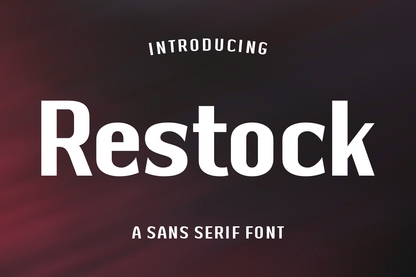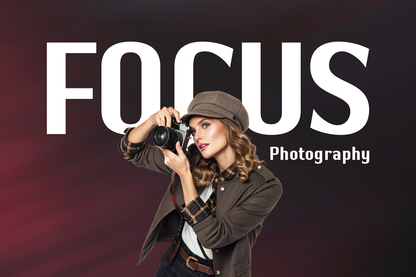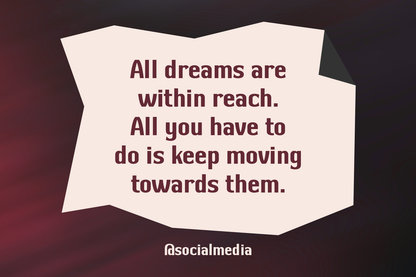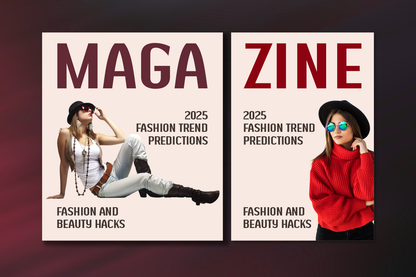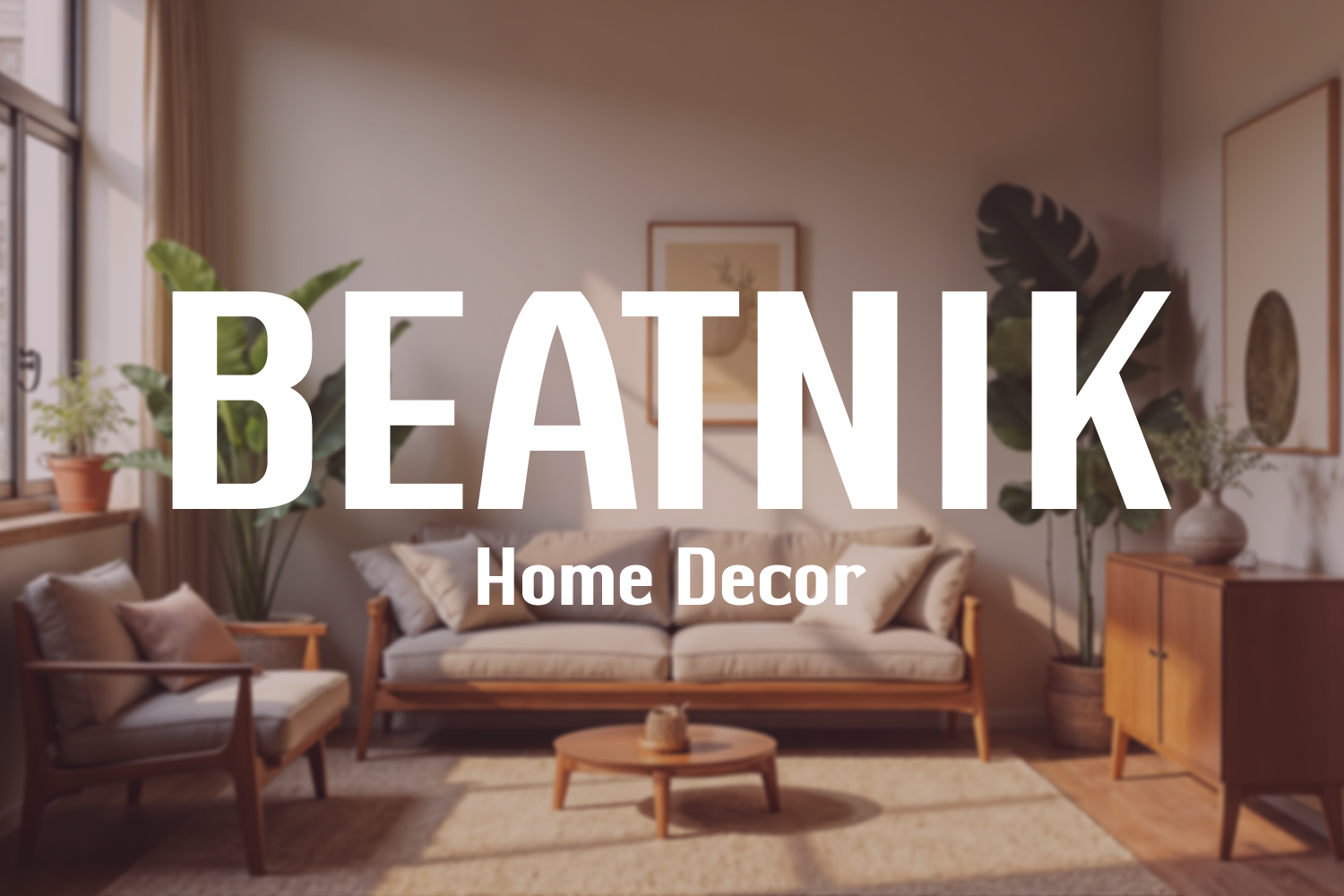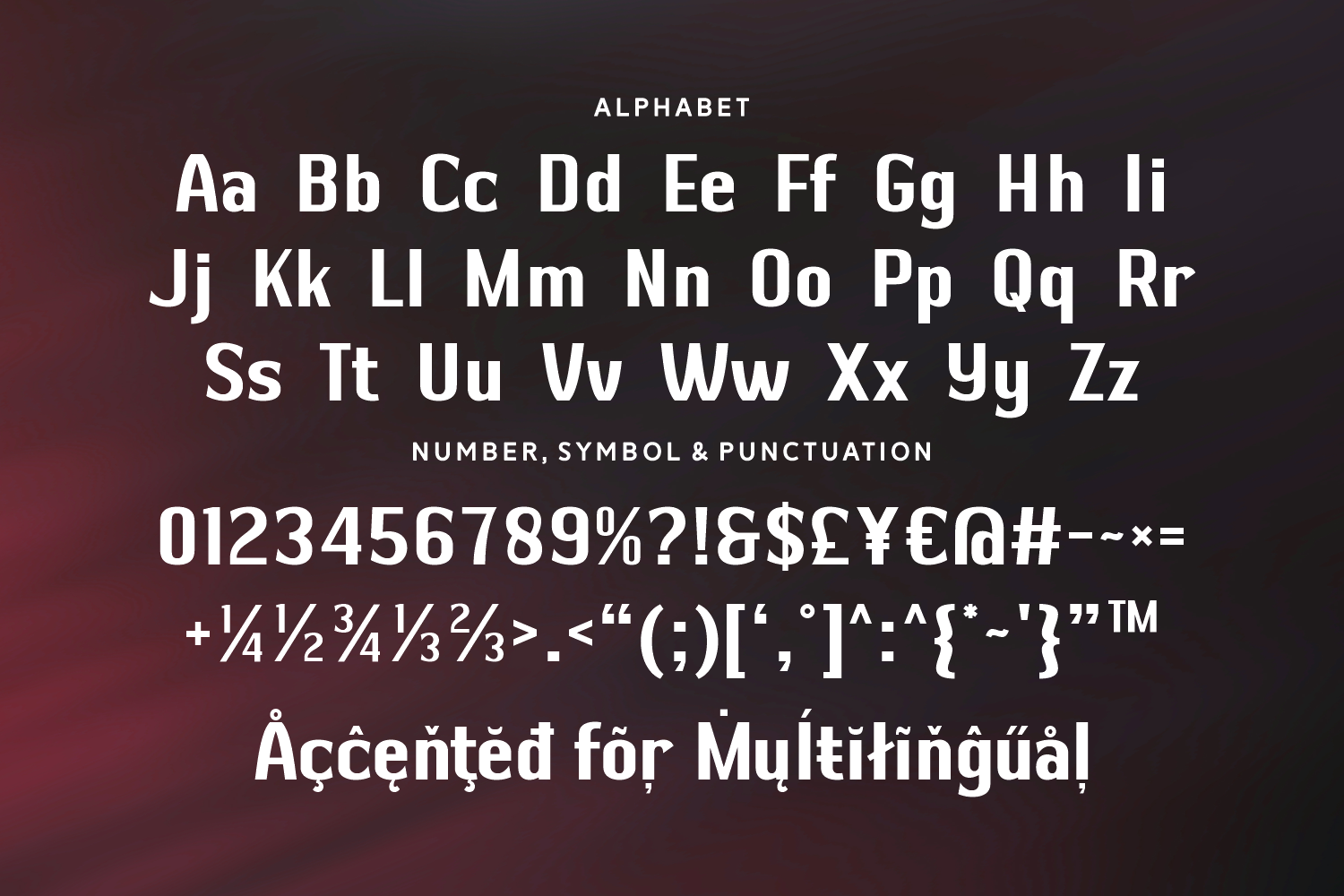
Restock is a sturdy and clean sans serif font crafted for modern branding and impactful messaging. With slightly geometric proportions and subtle personality, it shines in tech, business, and startup environments. It's a great choice for digital interfaces, headlines, and product promotions that need clarity and confidence.